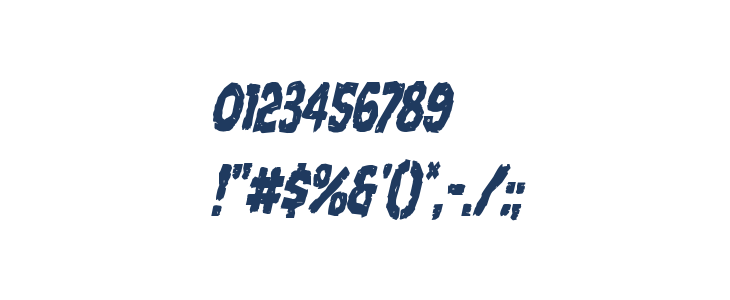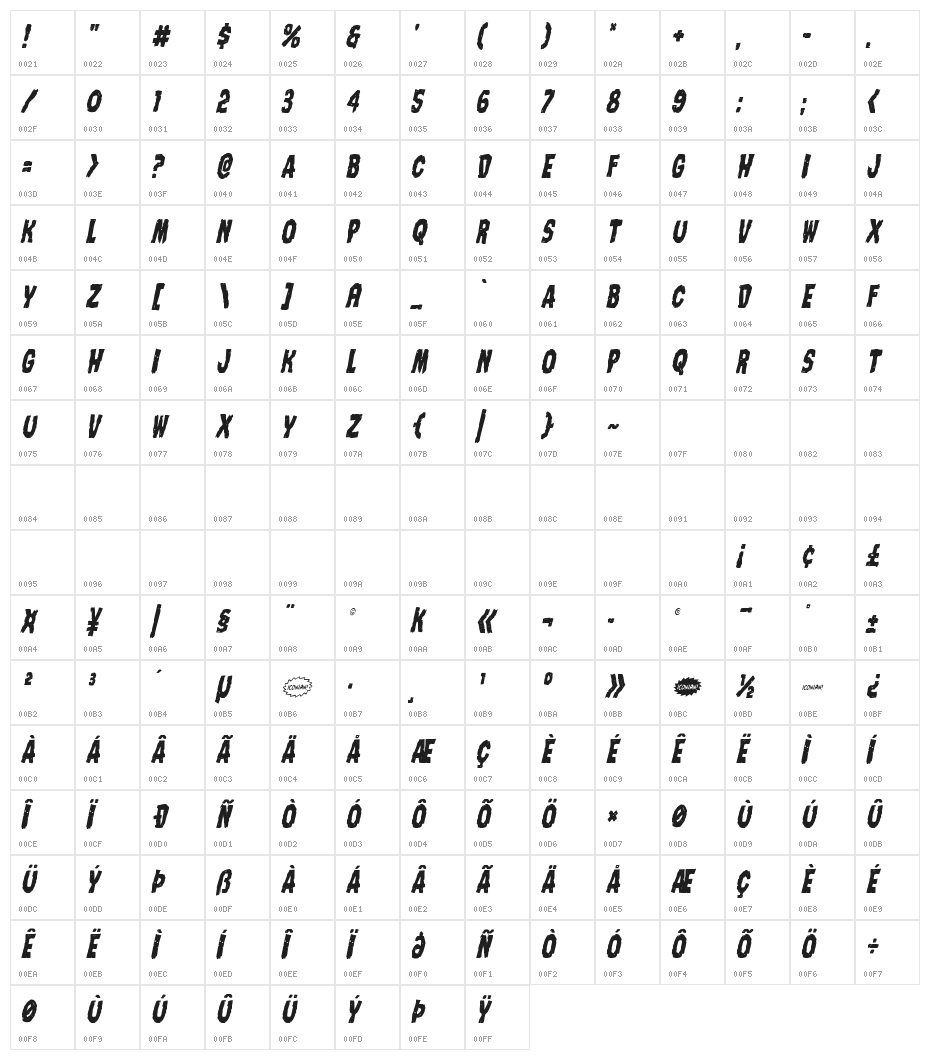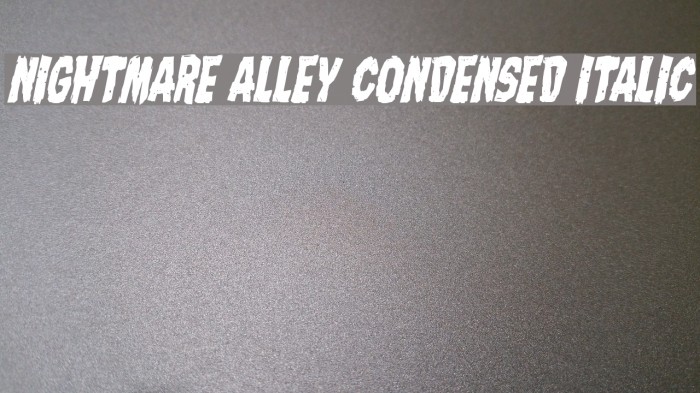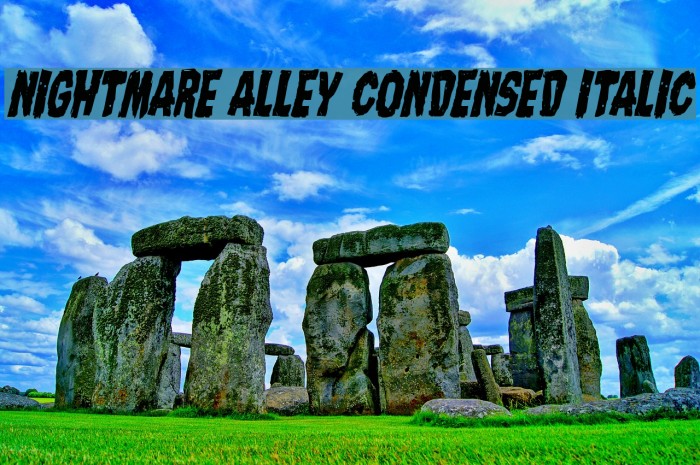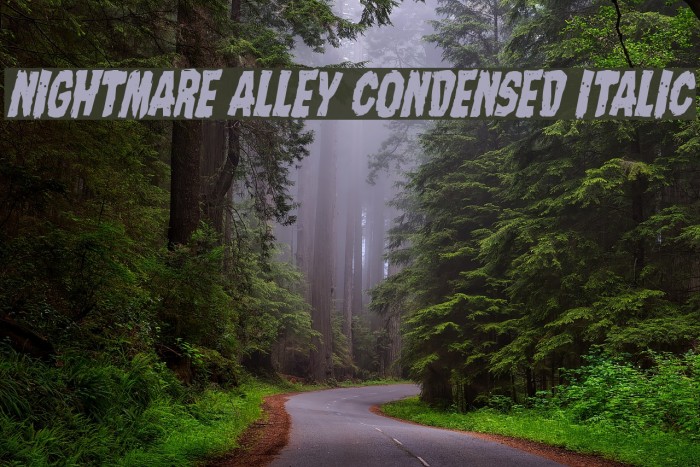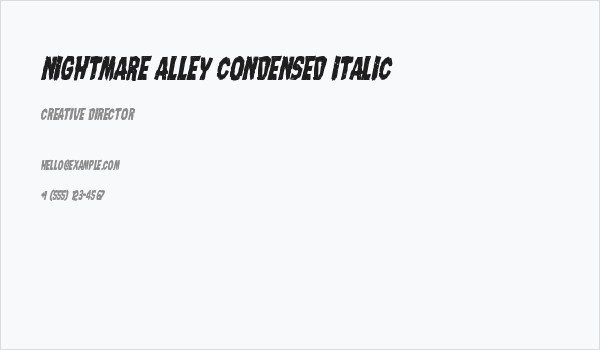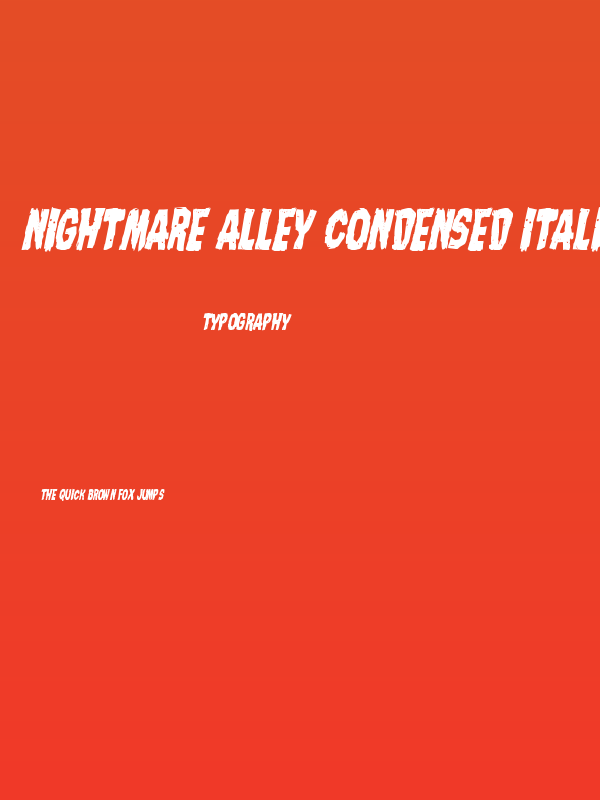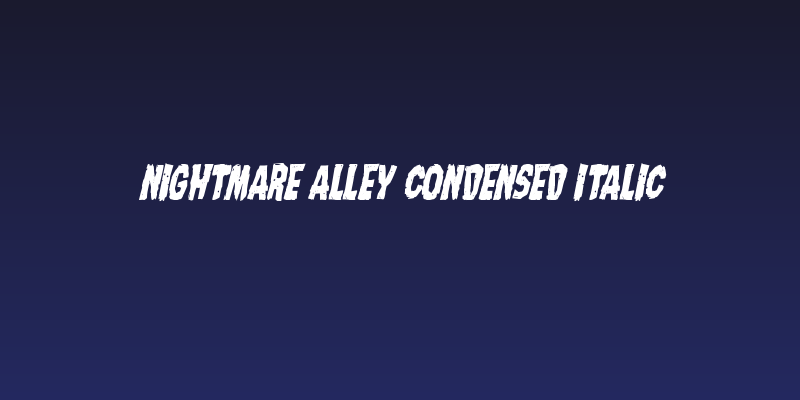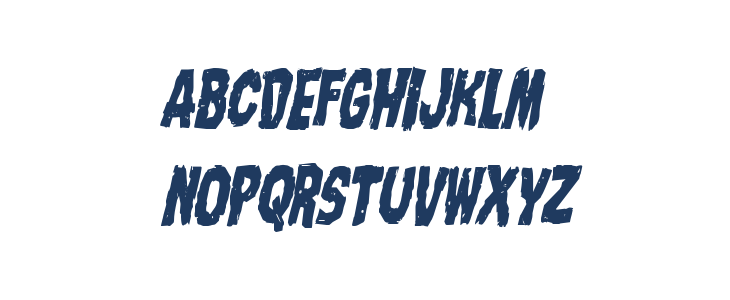
Nightmare Alley Condensed Italic Font
Nightmare Alley Condensed Italic Description
This font features a bold, distressed style with a condensed and italicized form. The characters are rugged and textured, giving an impression of wear and tear, which adds a dramatic and edgy feel. The uppercase letters are prominent, with a slight slant that enhances the dynamic appearance. The numbers and special characters maintain the same distressed aesthetic, ensuring consistency across all elements. This font is ideal for projects that require a bold statement or a vintage, gritty look.